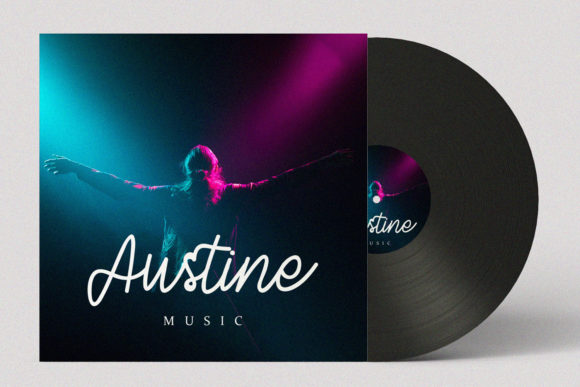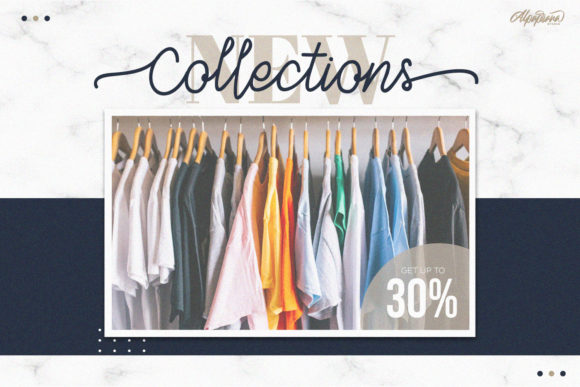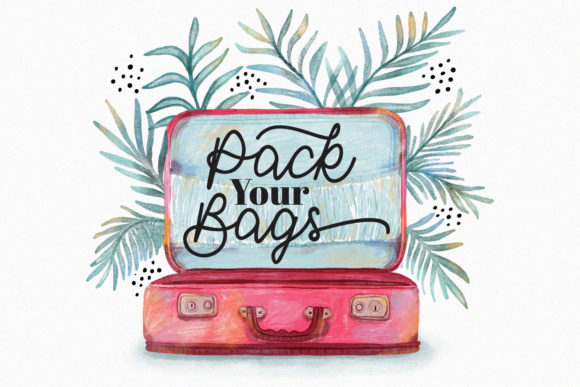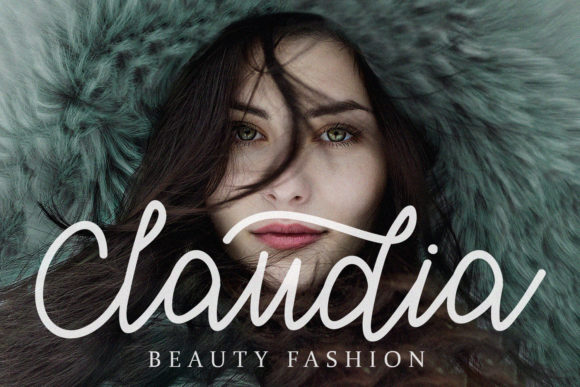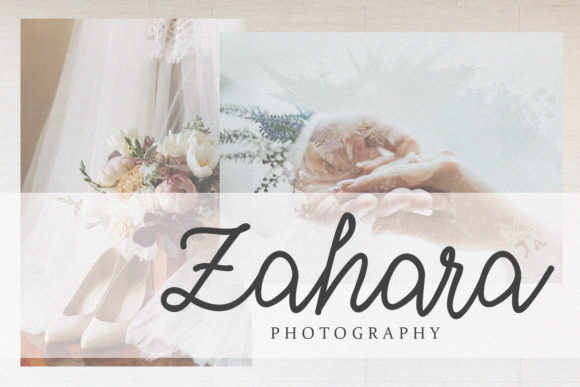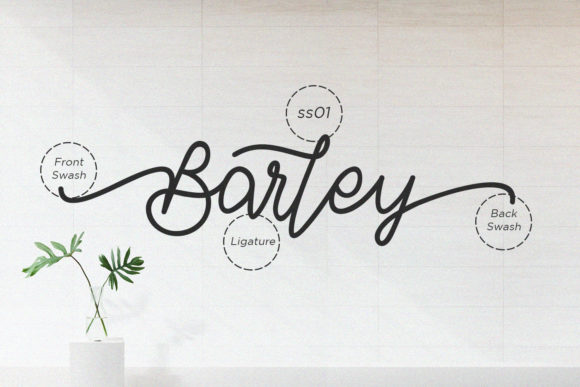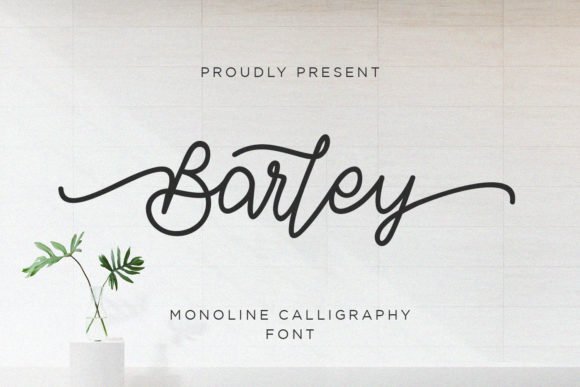
Discover the Enduring Charm of Barley Font
Have you ever stumbled upon a font that instantly sparks creativity and sets your imagination ablaze? For many designers, this is exactly what happens when they lay eyes on Barley Font – a stunning script font that exudes authentic and casual charm. Whether you’re crafting a wedding invitation, designing beautiful stationery, or simply looking to elevate your social media presence, Barley Font is the perfect companion to bring your ideas to life.
With its incredibly versatile style and PUA encoded glyphs, Barley Font offers endless possibilities for designers. This font is a treasure trove of creative expression, waiting to be unlocked and used to create stunning visual content. Whether you’re a seasoned pro or just starting out, Barley Font is a valuable addition to your design toolkit – and its ease of use makes it accessible to designers of all levels.
Barley Font Key Features
- Unique Characteristics: Barley Font features a distinctive, hand-drawn style with subtle imperfections, giving it a warm and organic feel that sets it apart from other fonts.
- Script and Language Support: The font includes support for multiple languages, including Latin, Cyrillic, and Greek scripts, making it a versatile choice for international typography.
- Font Weight and Style: Barley Font is available in multiple weights, from light to bold, as well as italics, providing users with a range of options to suit their design needs.
Barley Font Review
I recently had the chance to work with the Barley Font, and I have to say it’s a decent addition to any designer’s toolkit. ✨
- The font’s unique, rustic feel makes it perfect for creating a cozy atmosphere in branding and print materials.
- The font’s versatility allows it to work well in both body text and headings, giving designers plenty of options for creative layouts.
- ⚠️ The font’s character set is somewhat limited, which may cause issues for designers working with languages that require a wider character set.
- ⚠️ The font’s bold weights can appear somewhat inconsistent, which may detract from the overall design.
Overall, the Barley Font is a solid choice for designers looking for a unique, rustic feel. While it may have some limitations, its versatility and open-source nature make it a great addition to any designer’s toolkit.
Tips for Getting the Most Out of Barley Font
Use Barley Font for titles, headings, and body text to create a cohesive and rustic look.
Pair Barley Font with complementary fonts to add visual interest and depth to your design.
Experiment with different font sizes, colors, and styles to find the perfect balance for your project.
Use Barley Font for:
Rustic or vintage-themed designs
Food or beverage branding
Outdoor or nature-inspired designs